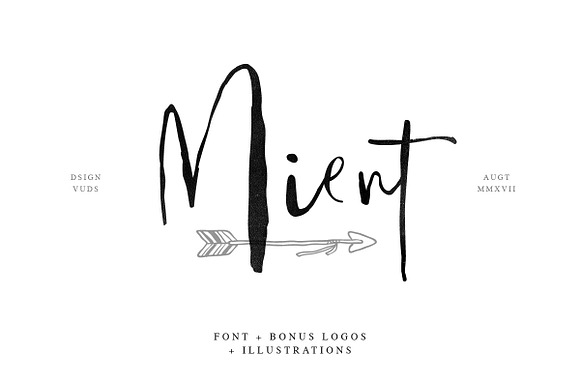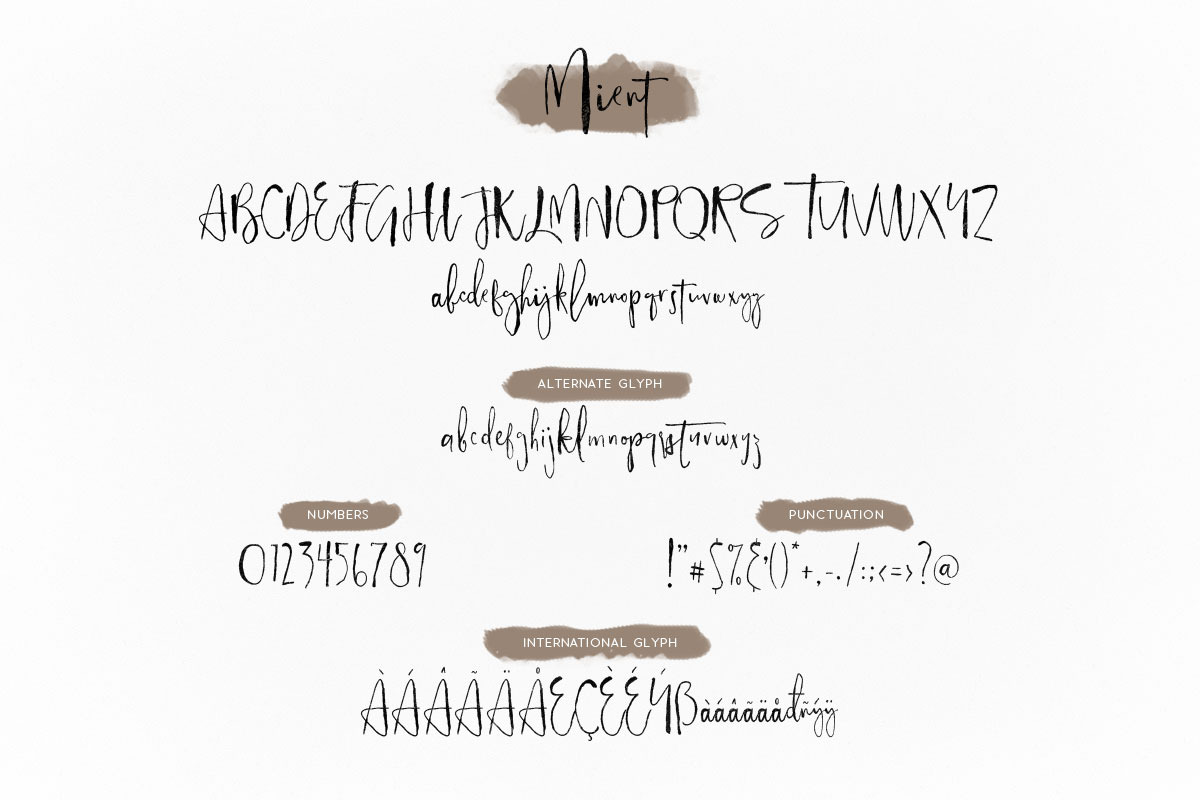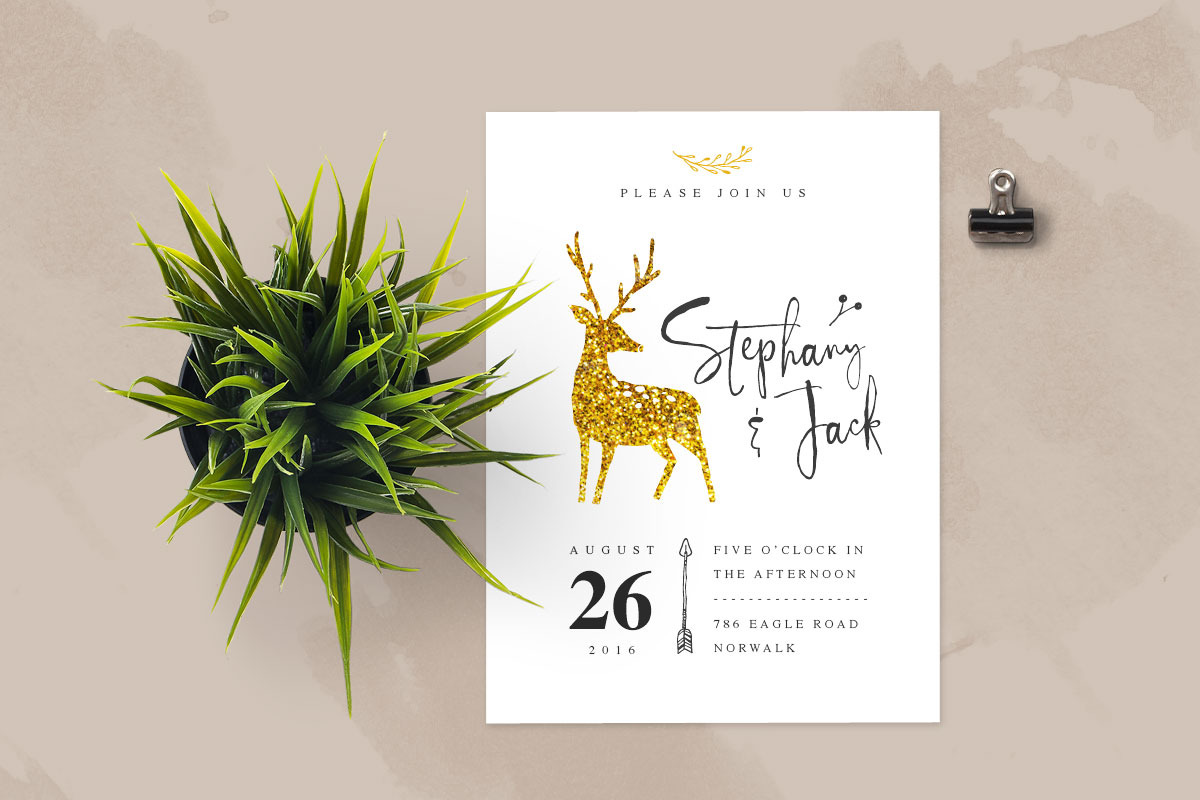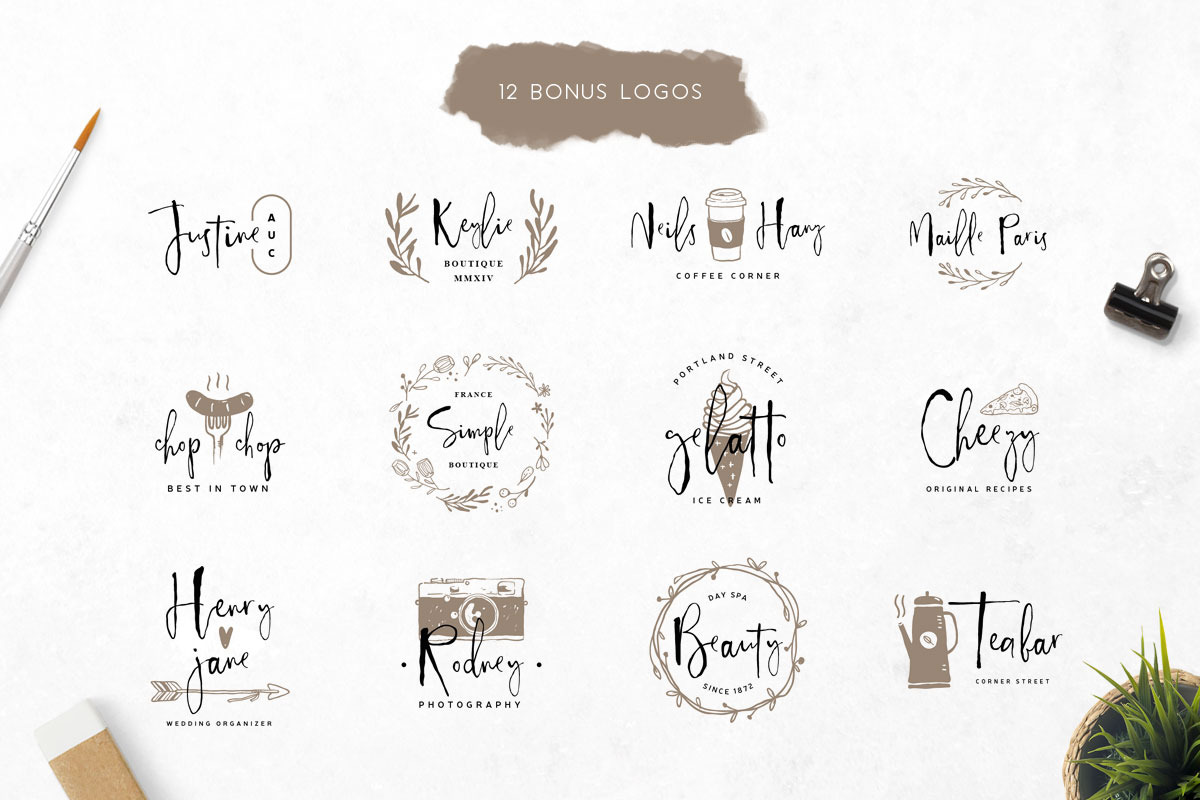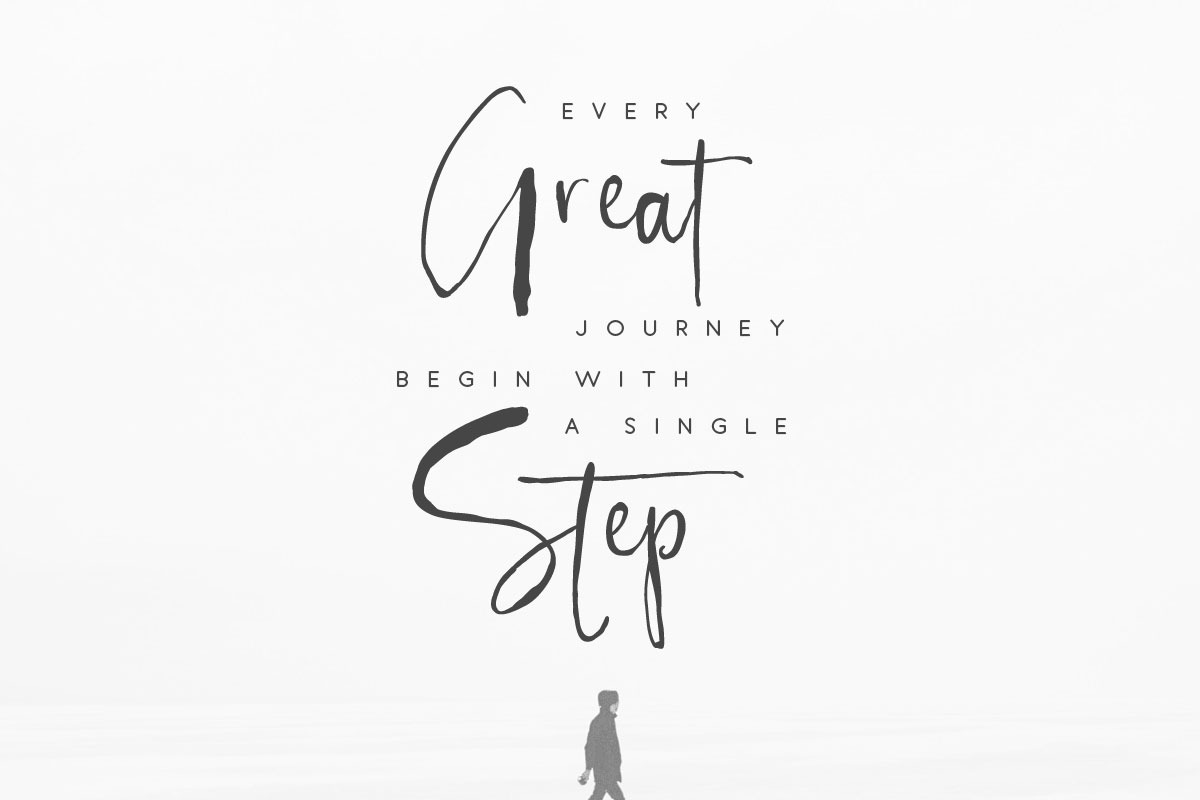
Mient Font + Bonus Illustration
Mient is modern script font, every single letters have been carefully crafted to make your text looks beautiful. With modern script style this font will perfect for many different project ex: quotes, blog header, poster, wedding, branding, logo, fashion, apparel, letter, invitation, stationery, etc.
Also this font including ton of illustrations with various theme (plants, leaves, honey, tea, coffee, etc). Another bonus that you get is 12 super cool logos including .AI and .PSD files. Those two bonus can bring more fun to you when playing with this item.